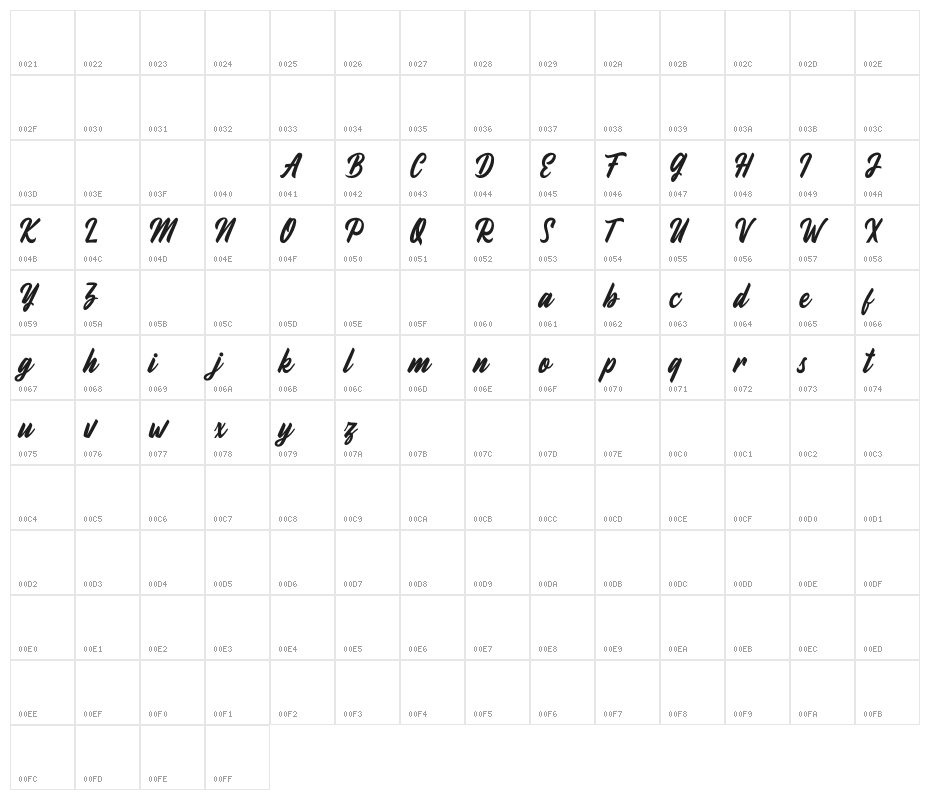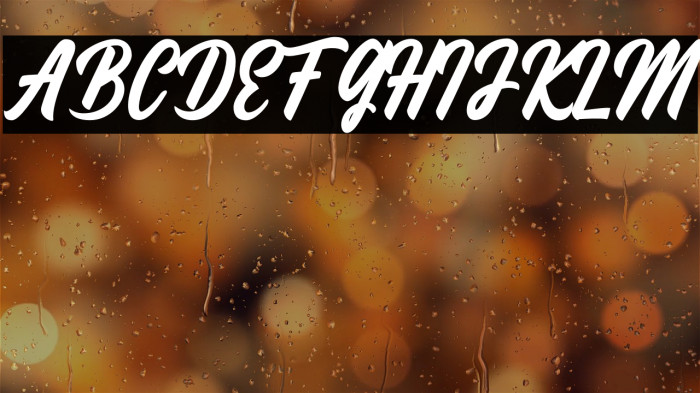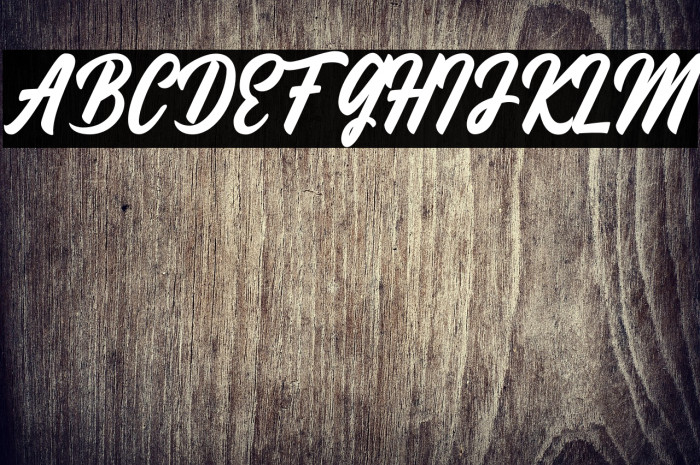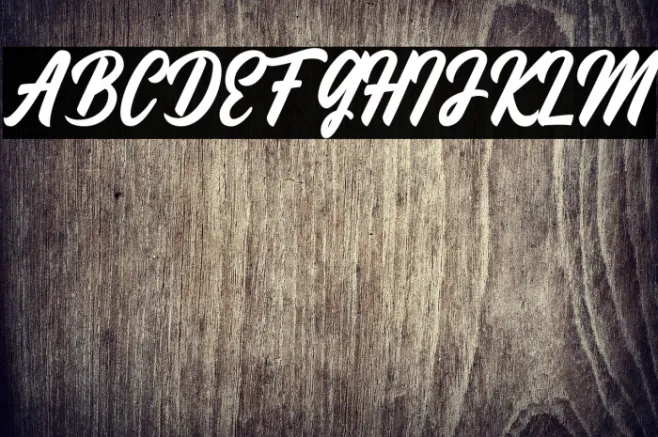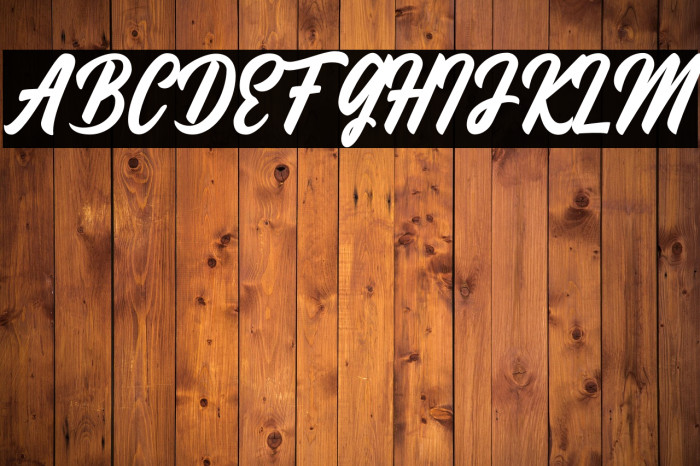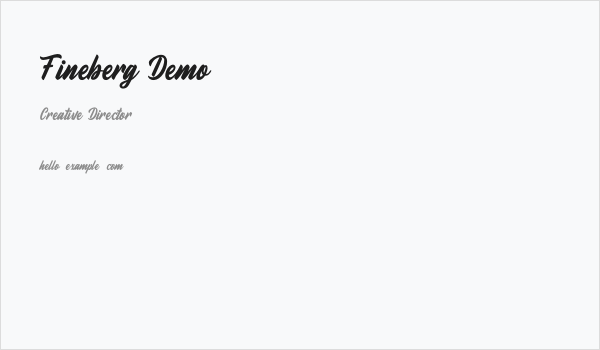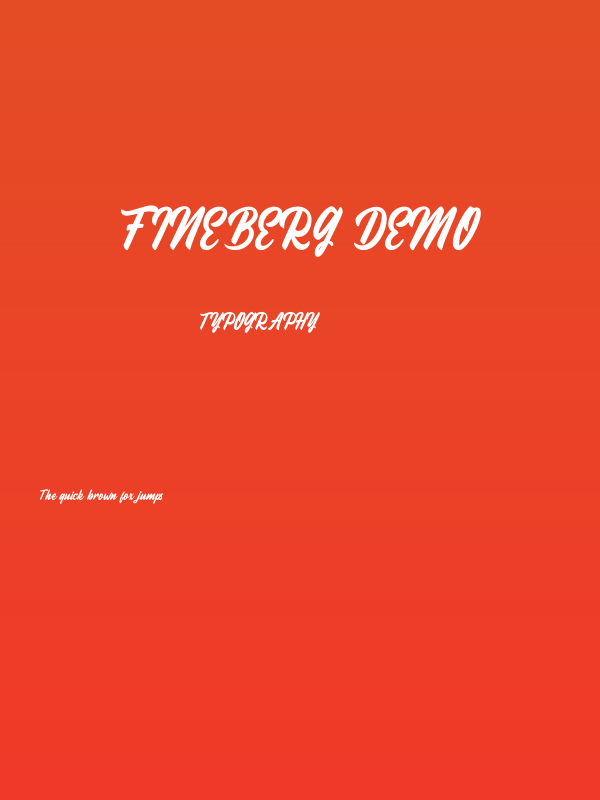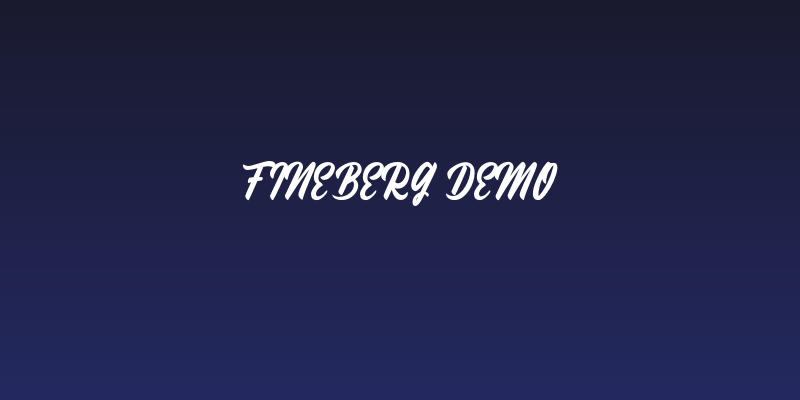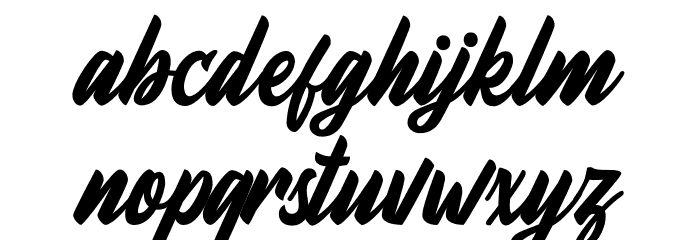
Fineberg Demo Font
Fineberg Demo Description
This font features a bold, cursive style with a strong emphasis on fluidity and elegance. The letters are interconnected, creating a seamless flow that is both dynamic and visually appealing. The uppercase letters are particularly striking, with exaggerated curves and flourishes that add a touch of sophistication. The lowercase letters maintain the same fluidity, with smooth transitions and consistent stroke widths. This font is ideal for projects that require a touch of elegance and flair, such as invitations, branding, and decorative headings. The overall design is both modern and timeless, making it versatile for various applications.
| Overall Style | Elegant, Modern |
| Proposed Projects | Ideal for invitations, branding, decorative headings, and elegant design projects. |